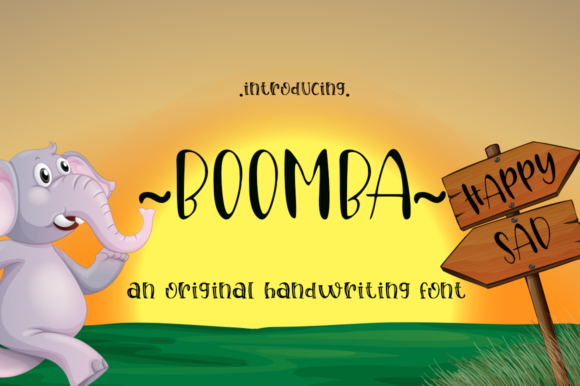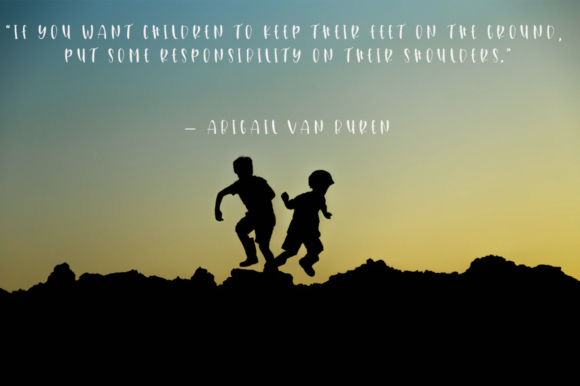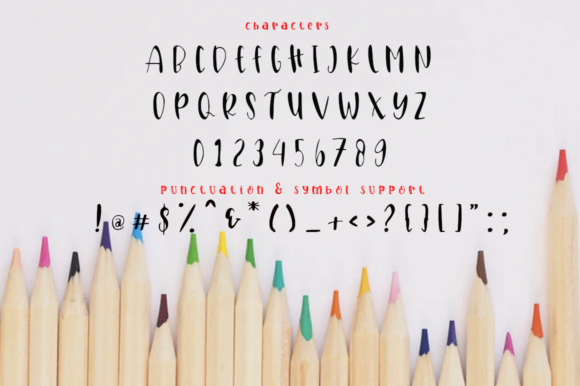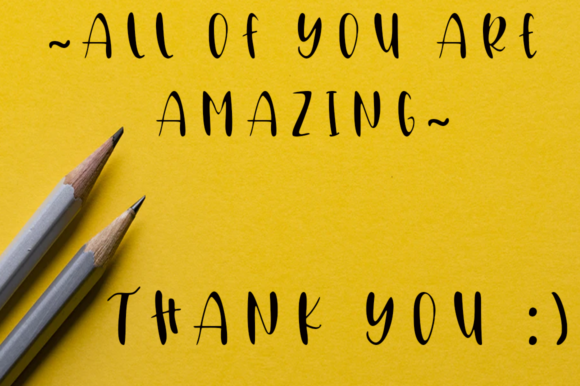
Boomba Font
About Boomba Font
Boomba is a cute and playful handwritten font. Get creative with its sweet style, and use it to brighten up any kids and school project!